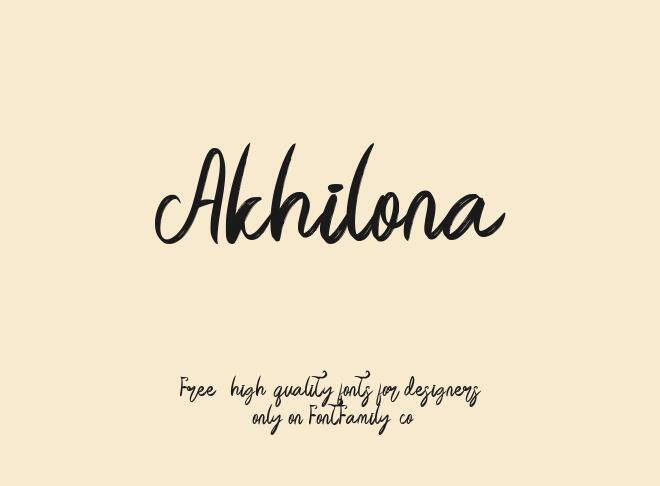
Akhilona Font
Akhilona Font is a unique, modern, and playful handwritten typeface that combines elegance with a touch of creativity. It's a perfect blend of style and functionality, making it an ideal choice for designers who want to make a bold statement. Akhilona Font's distinct and unique characters set it apart from other fonts, providing a fresh and innovative look for your design projects. Whether you're creating invitations, logos, or social media graphics, Akhilona Font adds a personal and creative touch to your work. Its handwritten style adds a level of intimacy to your designs, while its modern elements ensure it remains relevant and stylish. With its free personal use license, designers can easily incorporate Akhilona Font into their creative toolbox. It's not just a font, it's a statement of style, personality, and innovation.